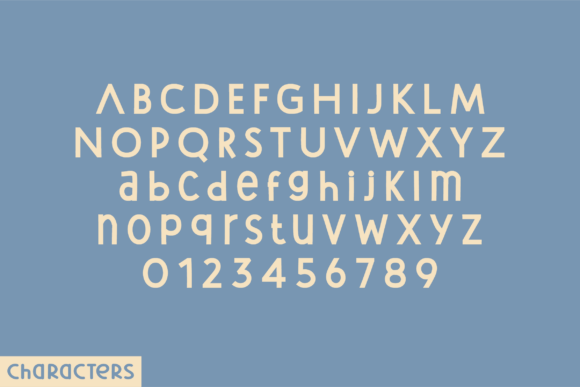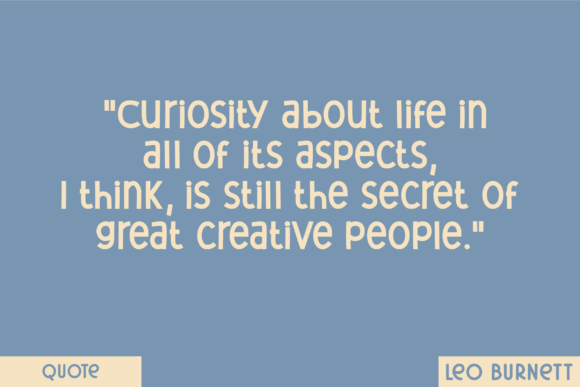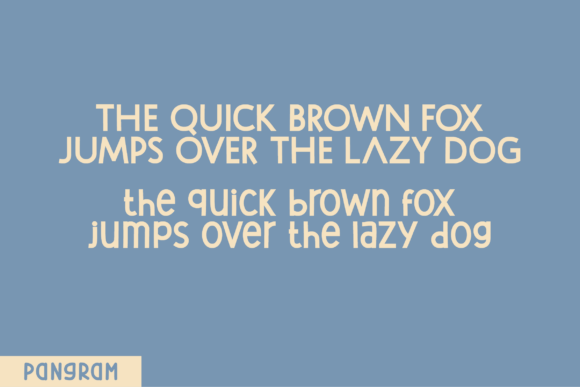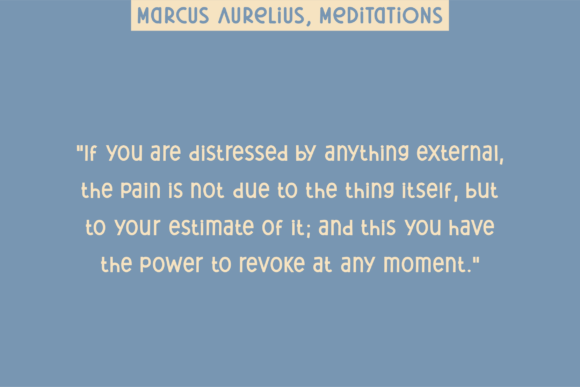
Discovering the Charm of Handwritten Typography
As a designer, there’s nothing quite like the thrill of stumbling upon a unique font that sparks inspiration. It’s the moment when words come alive on the page, and the creative juices start flowing. I’ve had my fair share of these moments, and I’m excited to share one of my latest discoveries with you – the captivating Calliean Font.
| 👤 Author | Hanna Bie |
This natural handwritten font is a treasure trove for designers, offering a fresh and organic look that’s perfect for quotes, notes, tees, and any product design. What sets Calliean apart is its unique approach to typography, where each character’s indentation remains intact, giving it a charming and authentic feel.
Whether you’re a seasoned designer or just starting out, the Calliean Font is a valuable addition to your toolkit. Its versatility and charm make it an excellent choice for a wide range of projects, and I’m eager to hear your thoughts on this stunning font.
Calliean Font Key Features
- Font Family: Calliean Font is a unique, hand-drawn sans-serif typeface.
- Size: The font family includes various weights and styles, ranging from 100 to 900 in 100-point increments.
- Resolution: Supports high-resolution printing, making it suitable for both digital and print media.
- Unique Characteristics: Calliean Font features a distinctive, rounded design with subtle irregularities, giving it a friendly and approachable feel.
- Language Support: Supports a wide range of languages, including Latin, Greek, and Cyrillic alphabets.
Designer Review: Calliean Font
Overall, I think the Calliean Font is a solid choice for designers looking for a modern, elegant font. ✨ One of the things that stands out to me is the versatility of the font – it works well for both serif and sans-serif applications, making it a great choice for a wide range of projects.
- ✨ The font has a clean, streamlined aesthetic that lends itself well to digital applications.
- ✨ The font is highly customizable, with a wide range of weights and styles available.
- ✨ The font is highly legible, making it a great choice for body text and other large blocks of text.
However, there are a few limitations to consider. ⚠️ One of the main issues I have with the font is that it can feel a bit generic at times – it’s not particularly distinctive or memorable.
- ⚠️ The font may not be the best choice for projects that require a lot of personality or flair.
- ⚠️ The font may not be as effective for use in small sizes or for text that requires a lot of emphasis.
Overall, I would say that the Calliean Font is a solid choice for designers who are looking for a clean, modern font that works well in a variety of applications.
The Calliean Font is ideal for creative projects, such as:
– Digital art and illustrations
– Print materials, such as business cards and brochures
Tips for Getting the Most Out of the Calliean Font
For the best results, use the Calliean Font in conjunction with other creative elements, such as:
– Bold colors and textures
– Ornate graphics and illustrations
– Whimsical and playful design elements
When to use: Pacifico Font is suitable for projects that require a high-end, luxurious feel, such as wedding invitations, luxury brand designs, and high-end product packaging.
Great Vibes Font is a stylish and modern script font with a relaxed, casual feel. It’s perfect for use in headings, titles, and other design elements where a friendly and approachable tone is required. Great Vibes Font has a similar playful feel to Calliean Font, but with a more laid-back and effortless appearance.